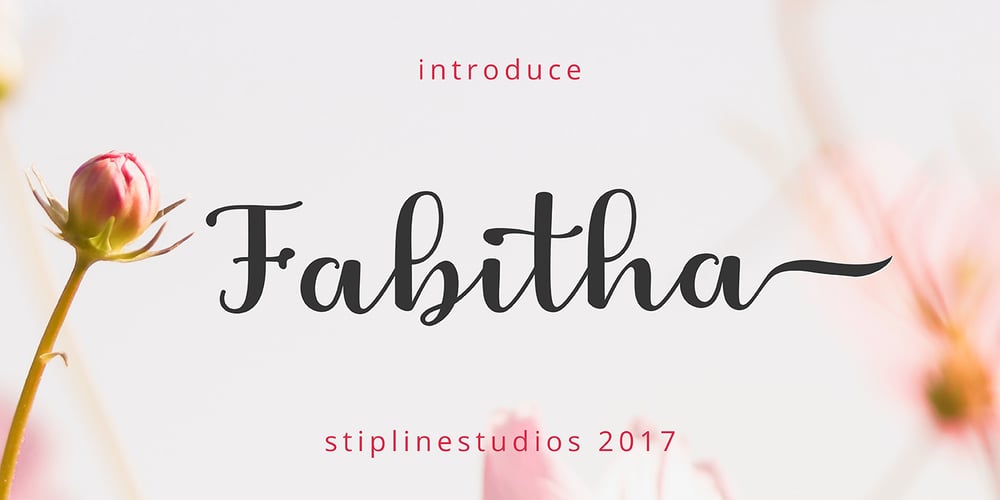
Fabitha Script
Fabitha Script font
Fabitha Script Font Family was designed by T. Marjan Bahraini and published by stiplinestudios. Fabitha Script contains 1 styles and family package options. Proudly Present .. Fabitha Script goes with Modern and Natural Calligraphy, ready to give your design project with Fresh and Fabulous Style. This font have an 177 Standard Glyph + 109 Glyph Alternate in Open Type Standard Format.Suitable for various purpose such as digital lettering, headings, logos, wedding invitation, t-shirt, letterhead, signage, lable, news, posters, badges, branding materials, t-shirt, print, business cards, quotes, logo, poster, and suitable for any graphic design project.